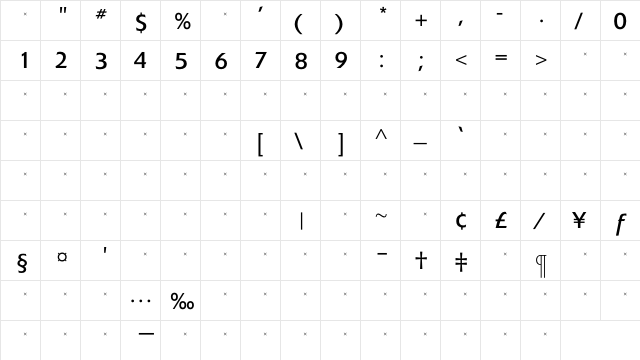
ExtensionBookTab Regular
Design Context for ExtensionBookTab Typeface
ExtensionBookTab takes a measured approach to typography — its balanced proportions and neutral character make it a reliable workhorse for both digital and print work.